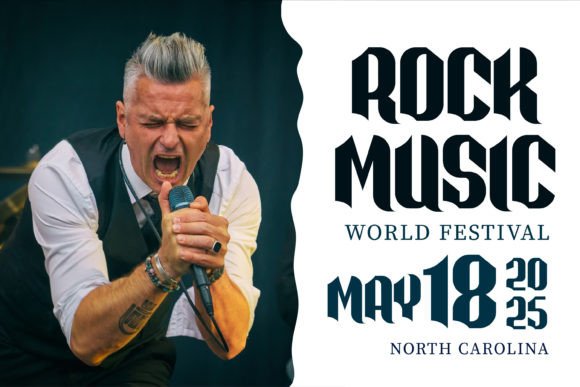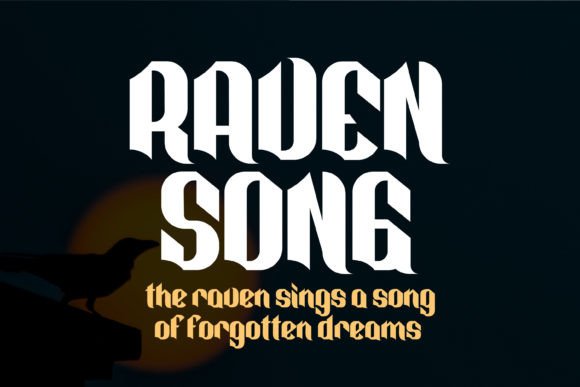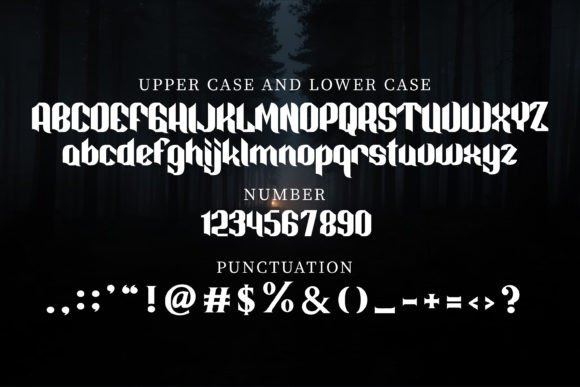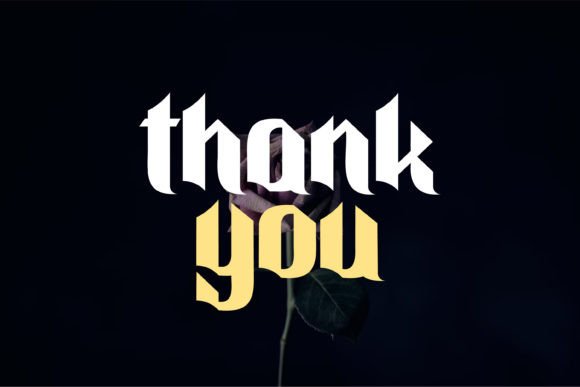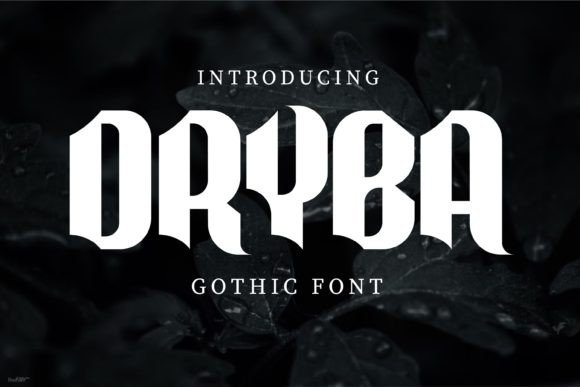
Introducing Dryba: Redefining Gothic Typography for the Modern Era
Step into the future of design with Dryba, a modern Gothic font that pushes the boundaries of typographic excellence. Inspired by the rich heritage of Gothic letterforms yet infused with contemporary sensibilities, Dryba is the ultimate fusion of tradition and innovation.
The Evolution of Gothic Typography
Gothic typography has a storied history, dating back to the 12th century. Characterized by its dramatic flair, intricate details, and majestic presence, Gothic letterforms have been a staple of monumental architecture, ornate manuscripts, and striking artworks. Over the centuries, Gothic typography has evolved, influencing various design movements and adapting to changing tastes and technologies.
Today, Gothic typography continues to captivate designers and audiences alike with its unique blend of mystery, elegance, and power. However, as design landscapes evolve and digital platforms become increasingly dominant, the need for modern, versatile, and highly legible Gothic fonts has never been more pressing.
Dryba: A Modern Gothic Font for the Digital Age
Dryba emerges as a bold response to this need, redefining Gothic typography for the 21st century. This cutting-edge font combines the classic essence of Gothic letterforms with the demands of modern design: versatility, legibility, and a keen eye for detail.
Key Features of Dryba
- Contemporary Twist: Dryba brings a fresh perspective to Gothic typography, incorporating subtle refinements and streamlined shapes that enhance legibility and aesthetic appeal.
- Versatility: Designed to excel in both digital and print formats, Dryba offers a wide range of applications, from headlines and titles to body text and branding.
- Elegant and Bold: Dryba’s Gothic roots shine through with its dramatic flair and majestic presence, making it perfect for projects requiring a touch of elegance and sophistication.
- Highly Legible: Despite its ornate inspiration, Dryba prioritizes clarity and legibility, ensuring that messages are conveyed with precision and impact.
Design Philosophy and Inspiration
The creation of Dryba was guided by a deep respect for Gothic typography’s heritage, coupled with a passion for innovation and forward-thinking design. The font’s design philosophy revolves around the balance of tradition and modernity, ensuring that Dryba not only pays homage to its historical roots but also meets the practical needs of contemporary designers.
Inspiration for Dryba was drawn from a variety of sources, including ancient manuscripts, architectural inscriptions, and classic typography. However, the font’s development involved a process of distillation and refinement, resulting in a distinctly modern Gothic font that feels both timeless and cutting-edge.
Applications of Dryba
Dryba’s versatility and distinctive character make it suitable for a wide array of design projects. Some potential applications include:
- Branding and Logotypes: Dryba’s unique blend of elegance and boldness makes it an excellent choice for logos and brand identities seeking to make a lasting impression.
- Packaging and Advertising: The font’s high legibility and striking appearance are well-suited for headlines, taglines, and promotional materials.
- Web and Mobile Design: Dryba’s adaptability to various digital formats ensures that it can enhance user experiences across websites, apps, and digital platforms.
- Print and Editorial Design: From magazine titles and section headers to book covers and posters, Dryba brings a touch of Gothic sophistication to print projects.
| Author | ajiwaluyo88 |
Dryba stands as a testament to the enduring power of Gothic typography, reimagined for the modern era. By fusing historical inspiration with contemporary design sensibilities, Dryba offers a fresh, versatile, and highly legible Gothic font that is poised to leave its mark on the world of design.
Whether you’re a seasoned designer or a crafty hobbyist, Dryba invites you to explore new creative horizons, pushing the boundaries of what’s possible with typography. Embrace the future of Gothic design with Dryba, and discover a world where tradition meets innovation in the most unexpected ways.